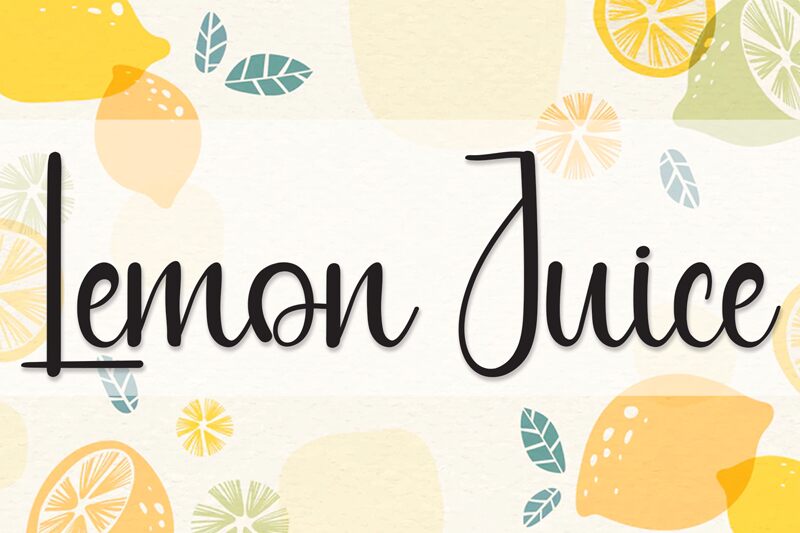
Lemon Juice
Lemon Juice is a captivating handwritten font designed by Andi Moz. Its flowing, organic lines evoke a sense of movement and vitality, making it an ideal choice for branding, packaging, and editorial design. The font's unique character is defined by its playful, yet elegant flourishes, which lend a touch of whimsy and sophistication to any project.
Lemon Juice's versatility allows it to seamlessly transition from bold headlines to delicate body text, effortlessly capturing the reader's attention. Its versatility makes it a valuable asset for designers seeking to create visually striking and memorable designs, whether in the realm of retail, food and beverage, or lifestyle-oriented projects.